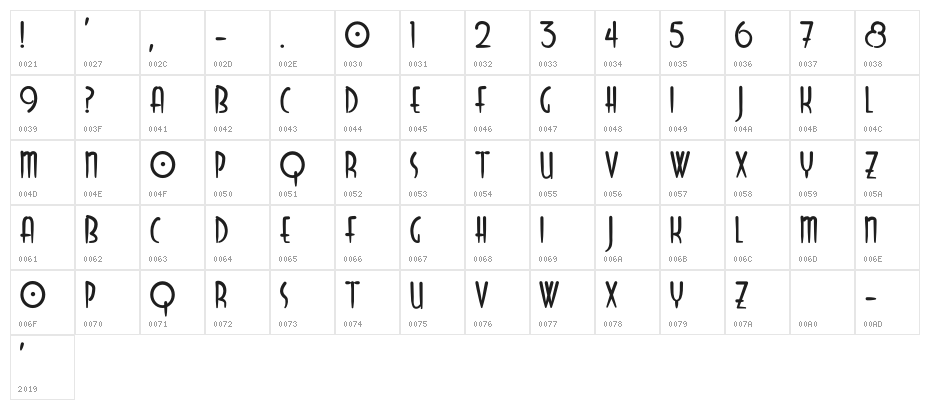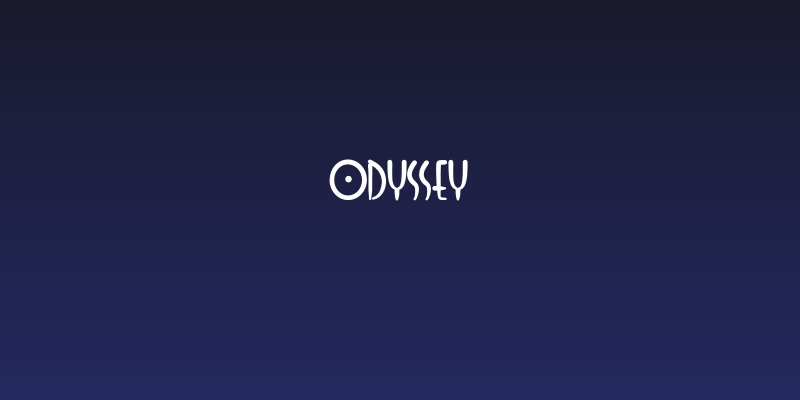
Odyssey Font
| Gesamtstil | Vintage |
| Vorgeschlagene Projekte | Ideal for vintage-themed posters, playful branding, creative invitations, and retro-style advertisements. |